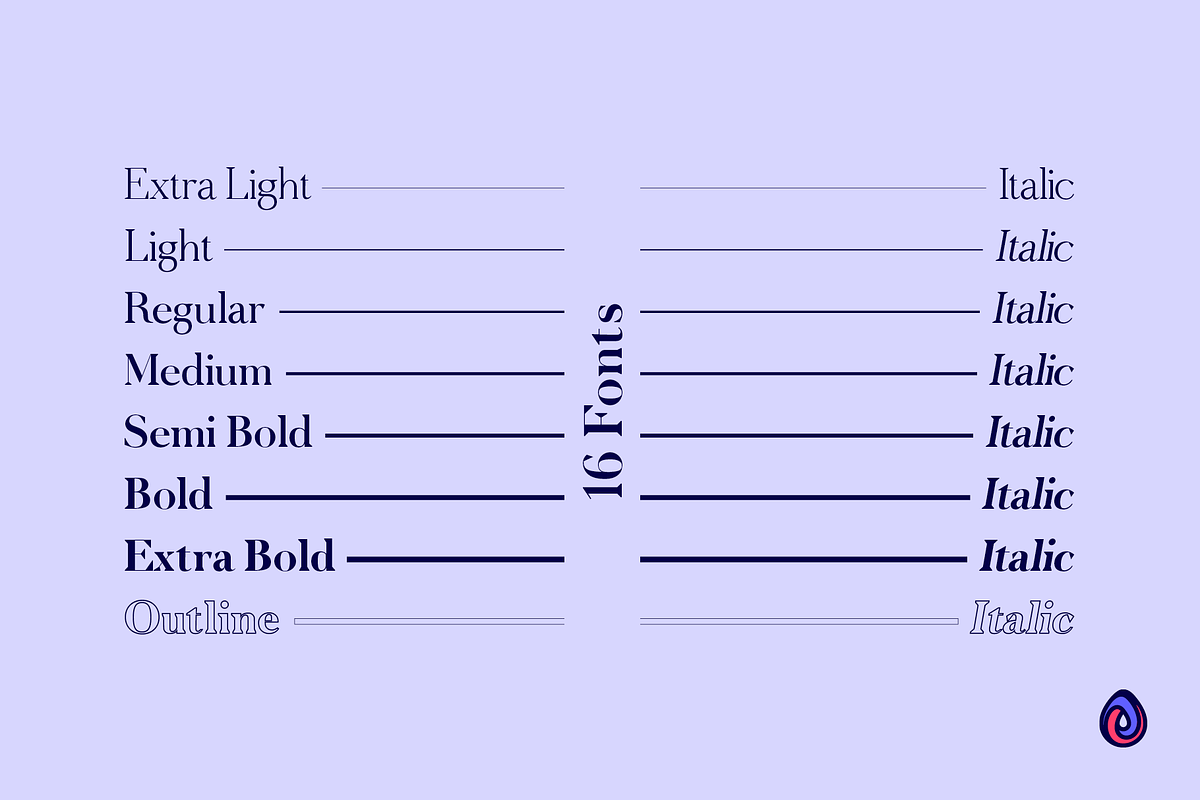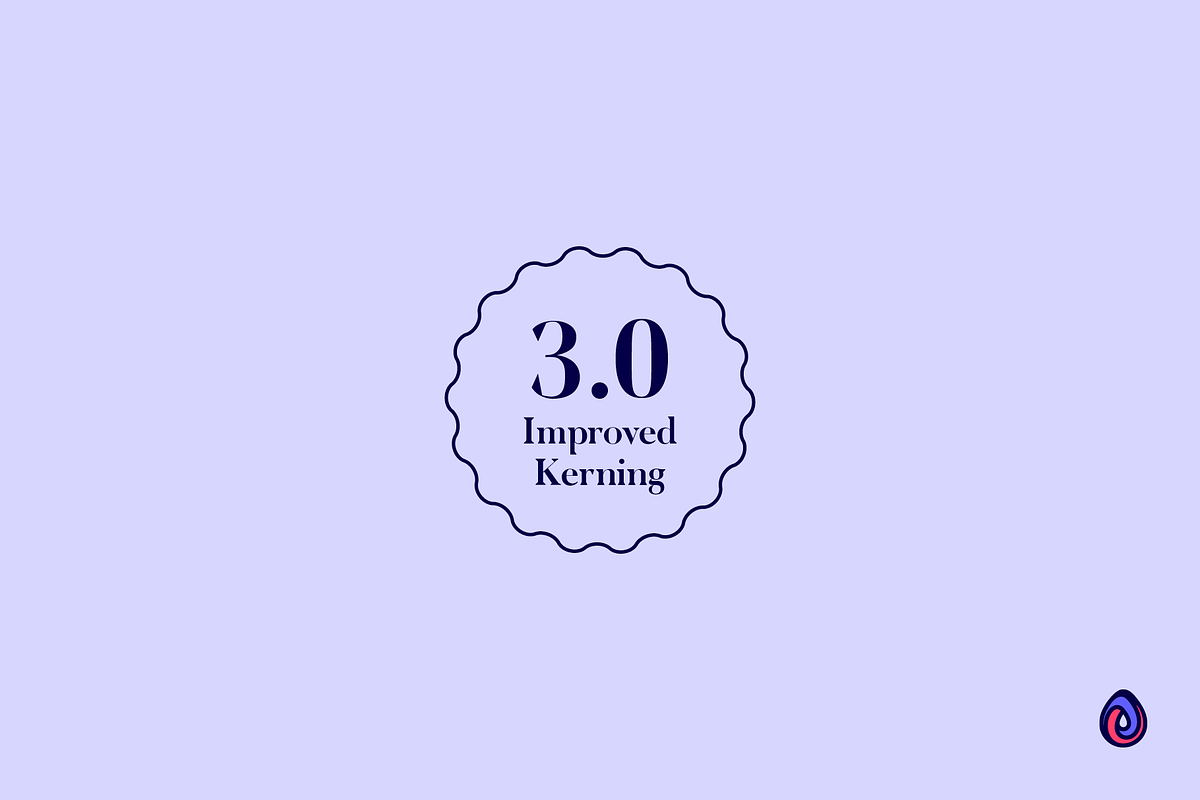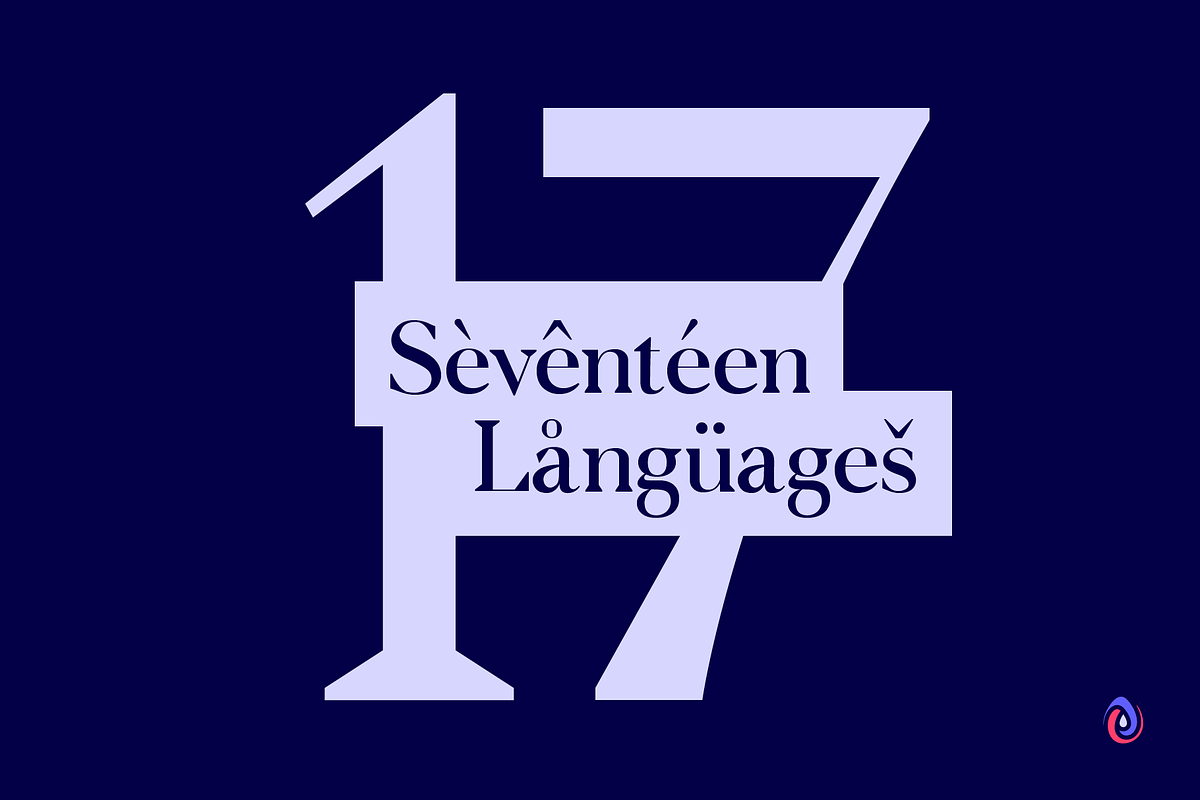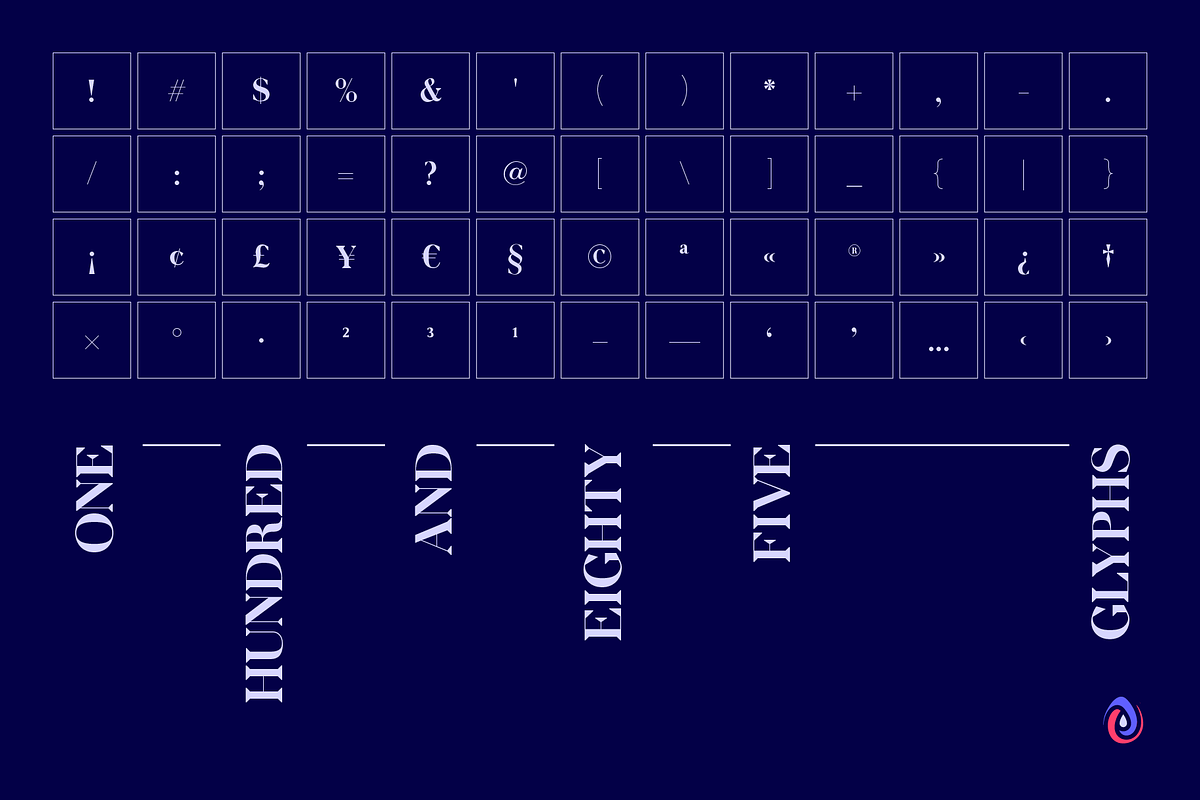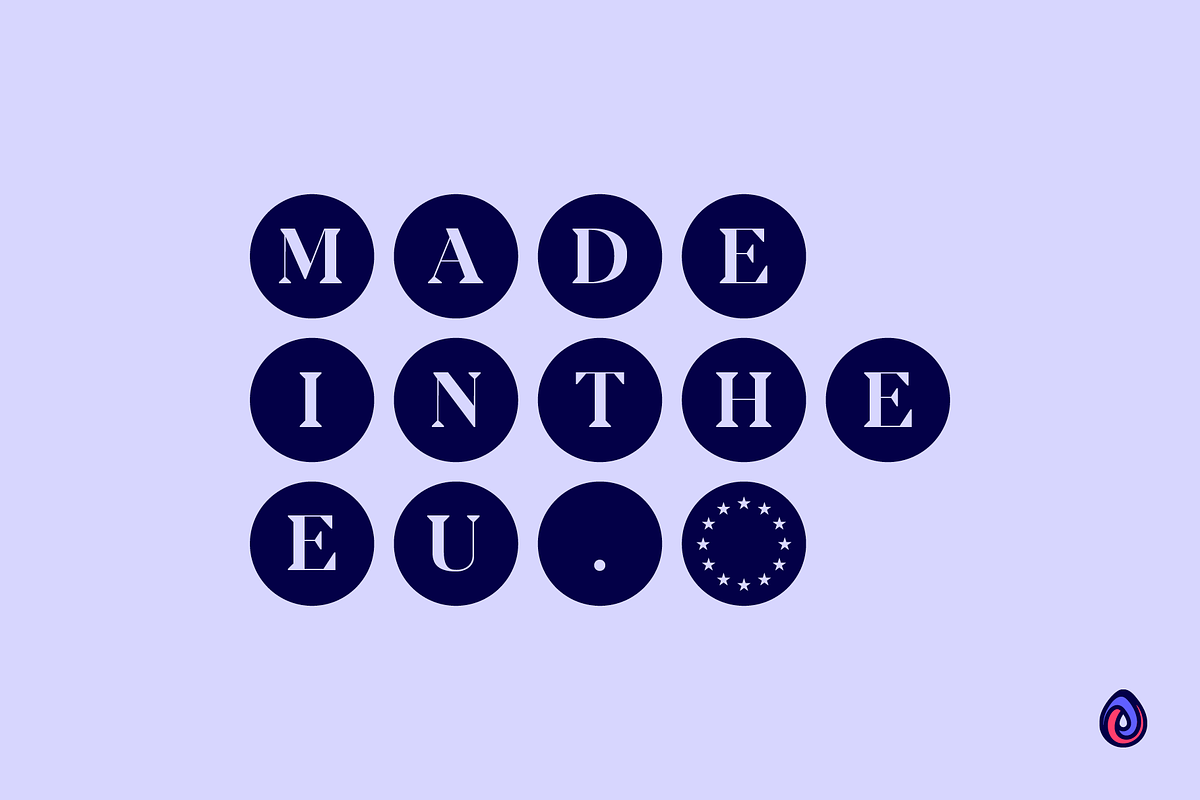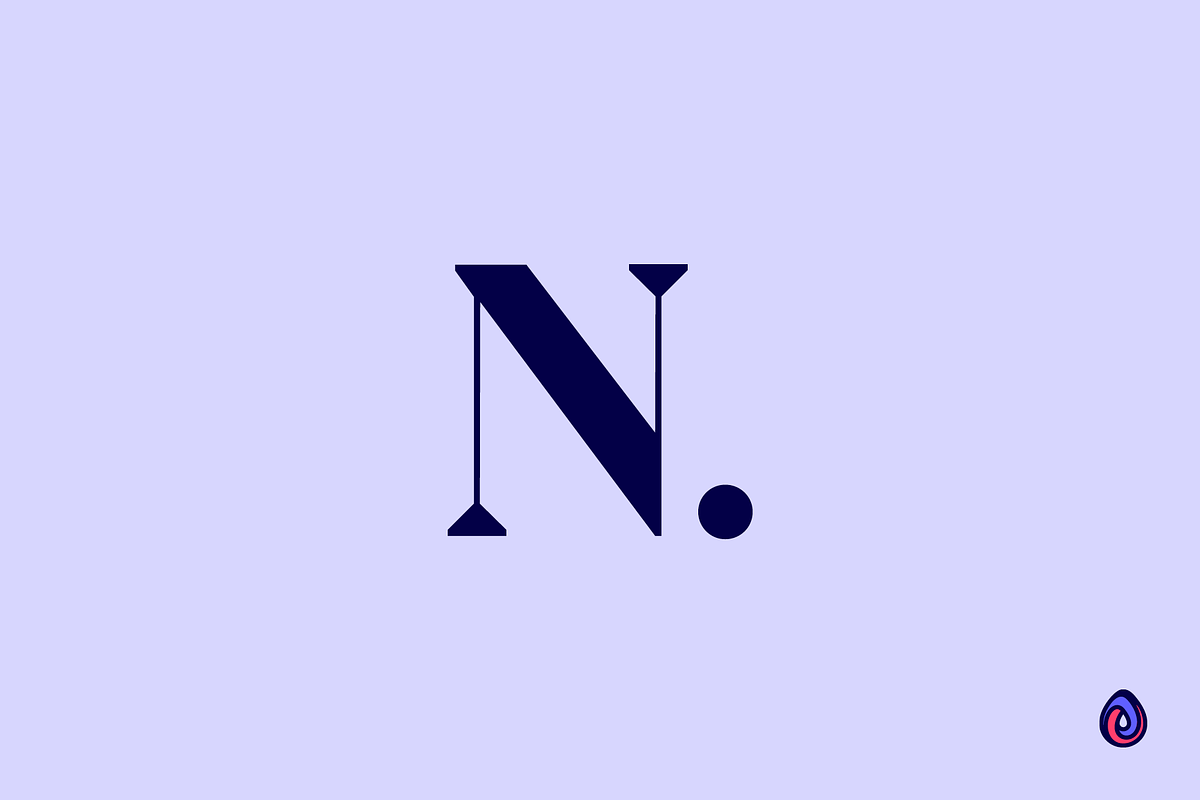
Node Display
Designed in The Hague amongst the canals and flowering lime trees, Node Display represents the best of organic curves with sharp modern edges. Sophisticated and edgy, it's everything you want out of a display font. It looks amazing at large sizes and, also, small sizes.
💪 16 Fonts. Extra Light, Extra Light Italic, Light, Light Italic, Regular, Regular Italic, Medium, Medium Italic, Semi Bold, Semi Bold Italic, Bold, Bold Italic, Extra Bold, Extra Bold Italic, Outline, Outline Italic.
🇳🇱 17 Languages. Basque, Catalan, Danish, Dutch, English, Estonian, Finnish, French, Frisian, Galician, German, Irish, Italian, Norwegian, Portuguese, Spanish and Swedish.
💎 185 Glyphs. 36 Punctuation Marks, 57 Uppercase Letters, 60 Lowercase Letters, Full Number Set.
Looks great packaged on wrapping, bottles and jars or digitally on websites, social and apps or printed on newspapers, magazines and flyers.